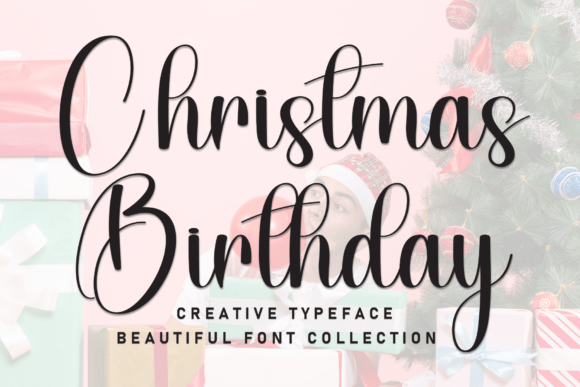
Introducing the Christmas Birthday Font: A Delightful Addition to Your Typography Collection
Are you searching for a font that embodies the spirit of joy, love, and celebration? Look no further than the Christmas Birthday Font, a charming display font that is sure to captivate your audience with its mild and amiable character. Designed with a lighthearted and adorable charm, this font is perfect for creating wedding invites, greeting cards, and any artwork that requires a joyful, whimsical flourish.
The Unique Allure of Christmas Birthday Font
The Christmas Birthday Font is a handcrafted typography that exudes an authentic, cozy ambiance, fostering connection and kindling happiness in those who experience it. Its handwritten styling is reminiscent of a warm, personal touch, making it an excellent choice for designers and crafters who want to add a touch of personality to their creations. Whether you’re designing a wedding invitation, a birthday card, or a festive holiday greeting, this font is sure to elevate your artwork and leave a lasting impression.
Perfect for Wedding Invites and Greeting Cards
The Christmas Birthday Font is an excellent typographic selection for creating captivating wedding invites or delightful greeting cards. Its joyful, whimsical character is sure to set the tone for a celebration that is both memorable and meaningful. Imagine pairing this font with a beautiful design or illustration to create a wedding invitation that is both elegant and playful. The result is a unique and eye-catching design that will leave a lasting impression on your guests.
Adding a Joyful, Whimsical Flourish to Your Designs
The Christmas Birthday Font is not just limited to wedding invites and greeting cards. Its versatility makes it an excellent choice for any artwork that requires a joyful, whimsical flourish. Whether you’re designing a festive holiday greeting, a children’s book, or a playful poster, this font is sure to add a touch of personality and whimsy to your design. Its handwritten styling and lighthearted character make it an excellent choice for designers who want to create artwork that is both fun and engaging.
Inducing Sentiments of Affection, Camaraderie, and Cheer
The Christmas Birthday Font is more than just a typography – it’s a way to induce sentiments of affection, camaraderie, and cheer in your creative designs. Its expressive, handwritten styling is sure to evoke feelings of warmth and connection, making it an excellent choice for designers who want to create artwork that is both personal and meaningful. Whether you’re designing a wedding invitation, a birthday card, or a festive holiday greeting, this font is sure to add a touch of love and joy to your design.
Key Features of the Christmas Birthday Font
- Handwritten styling with a lighthearted, adorable charm
- Mild and amiable character that fosters connection and kindles happiness
- Perfect for wedding invites, greeting cards, and any artwork that requires a joyful, whimsical flourish
- Versatile and easy to use in a variety of design applications
- Expressive and handwritten styling that induces sentiments of affection, camaraderie, and cheer
In conclusion, the Christmas Birthday Font is a delightful addition to any typography collection. Its unique allure and character make it an excellent choice for designers and crafters who want to add a touch of personality and whimsy to their creations. Whether you’re designing a wedding invitation, a greeting card, or a festive holiday greeting, this font is sure to elevate your artwork and leave a lasting impression. So why wait? Download the Christmas Birthday Font today and start creating artwork that is both joyful and meaningful.
Tips for Using the Christmas Birthday Font
Here are a few tips for using the Christmas Birthday Font in your designs:
- Pair the font with a beautiful design or illustration to create a unique and eye-catching design
- Use the font in a variety of sizes and colors to add visual interest to your design
- Experiment with different design elements, such as ribbons and flowers, to add a touch of whimsy to your design
- Use the font to create a sense of connection and warmth in your design
The Christmas Birthday Font is a delightful typography that is sure to add a touch of joy and whimsy to your designs. Its unique allure and character make it an excellent choice for designers and crafters who want to create artwork that is both personal and meaningful. So why wait? Download the Christmas Birthday Font today and start creating artwork that is both joyful and meaningful.